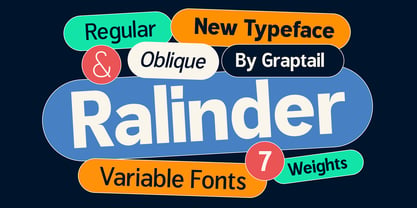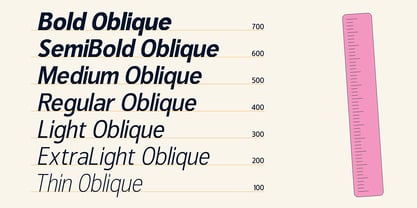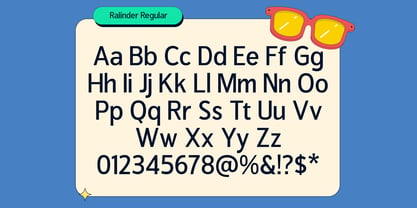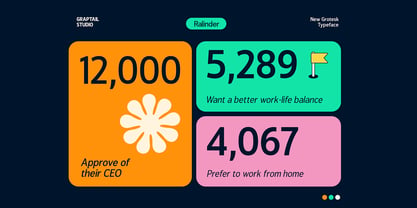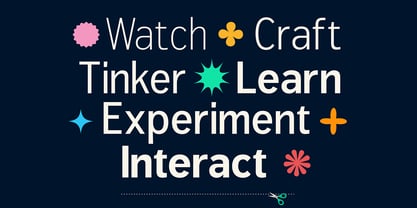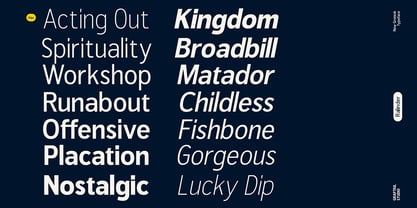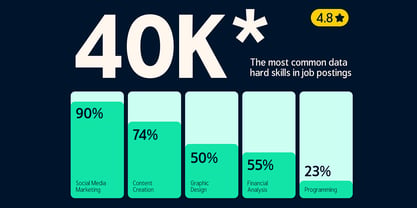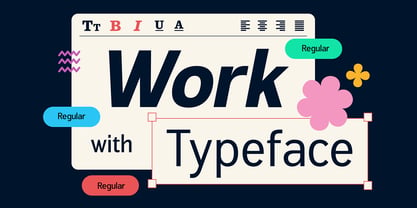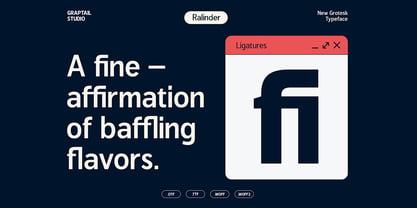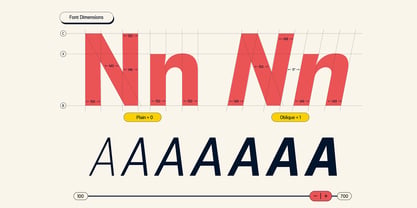
Ralinder
por Graptail
La familia tipográfica Ralinder fue diseñada por Teuku Deky Firnanda y publicada por Graptail. Ralinder contiene 14 estilos y opciones de paquete familiar. Más información sobre esta familia
Ralinder is a typeface inspired by text letters found in minimalist layouts, whose design uses the latest digital font technology. This versatile font comes in a variety of widths making it an ideal solution to meet every design need.
Having 2 different styles and widths, Finder also includes alternative characters that provide more design options. All these features make this font a great choice for graphic designers and art directors, logos, wordmarks, short texts, etc.
Ralinder is a sans-serif typeface with modern proportions and a straight edge. It comes in 7 weights, ranging from Thin to Bold.